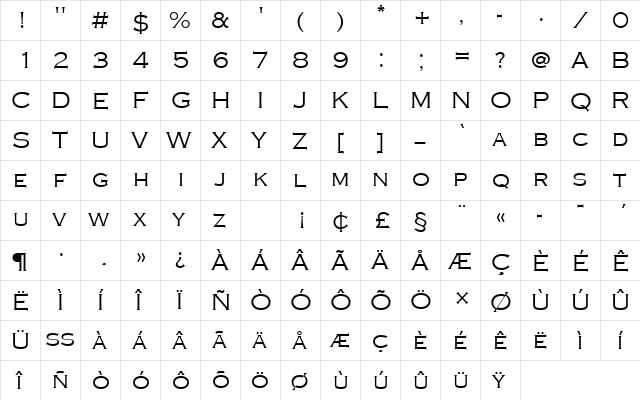
CopperplateTLigRo1 Regular Font Preview
CopperplateTLigRo1 Regular
Design Context for CopperplateTLigRo1 Typeface
CopperplateTLigRo1 takes a measured approach to typography — its balanced proportions and neutral character make it a reliable workhorse for both digital and print work.